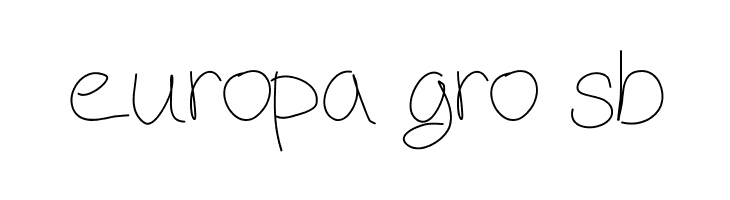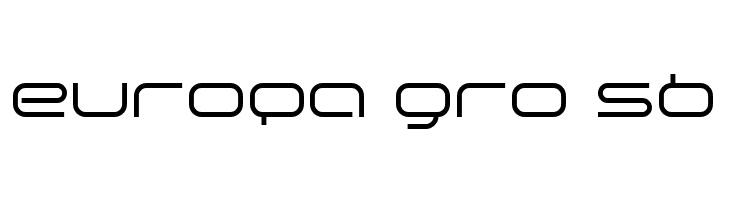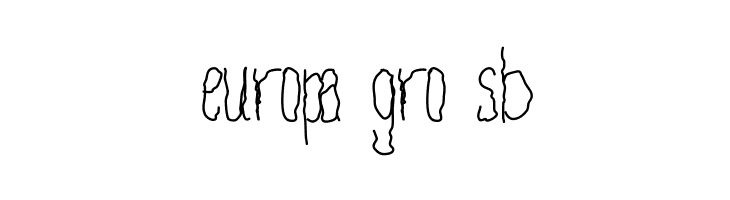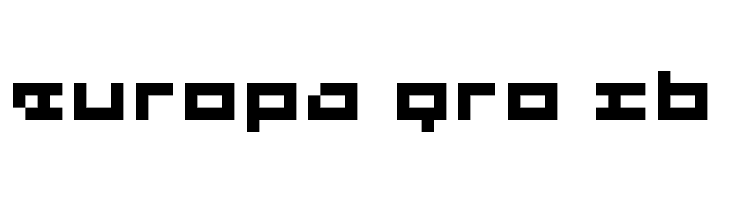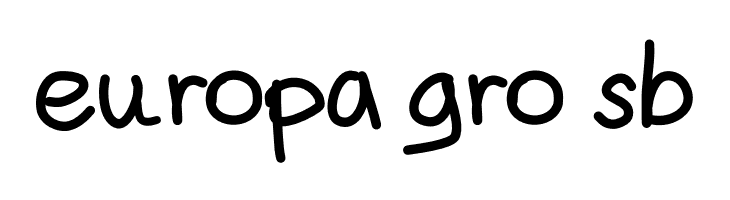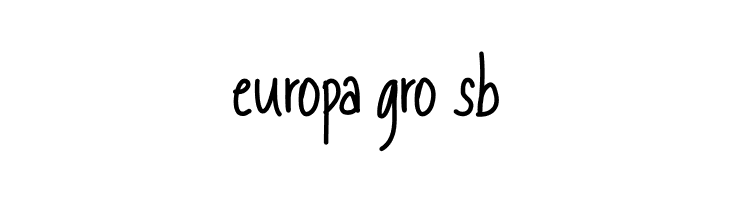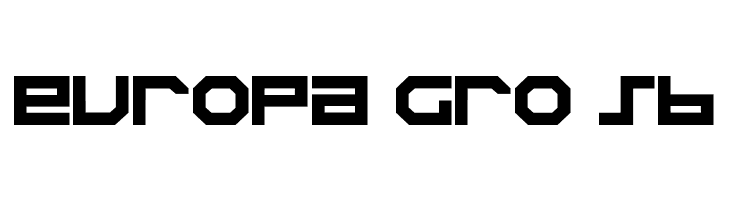
An artistic calligraphic font with dynamic strokes and expressive curves.
A bold, geometric font with a futuristic, digital style.
A futuristic and geometric font with a sleek, modern design.
A bold, geometric font with a digital, pixel-art style.
A bold, pixelated font with a digital, geometric style.
A bold, hand-drawn font with thick, uneven strokes and a playful, energetic style.
A playful, handwritten font with thin, irregular strokes and a casual style.
A playful, handwritten font with a condensed and casual style.
A playful, hand-drawn font with rounded, bold characters and a casual style.
A wavy, trembling font with thin, irregular strokes for a dynamic look.